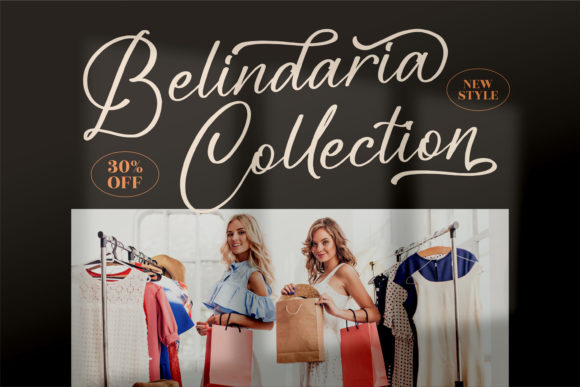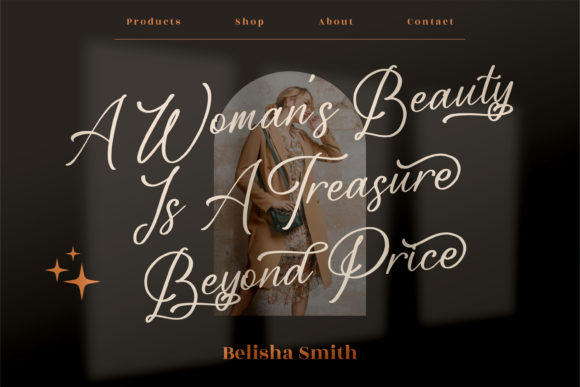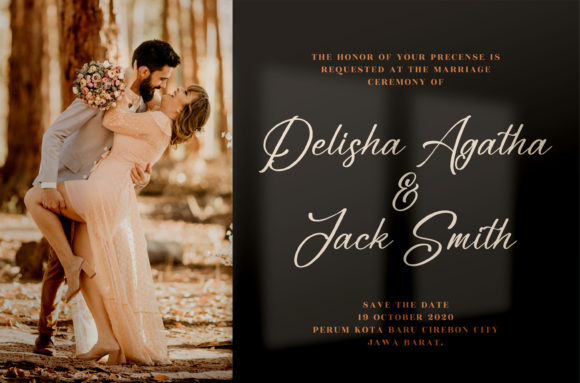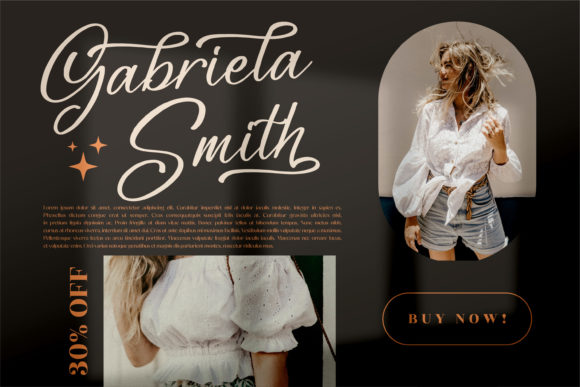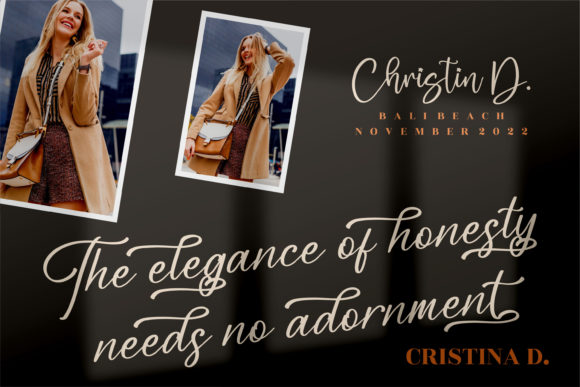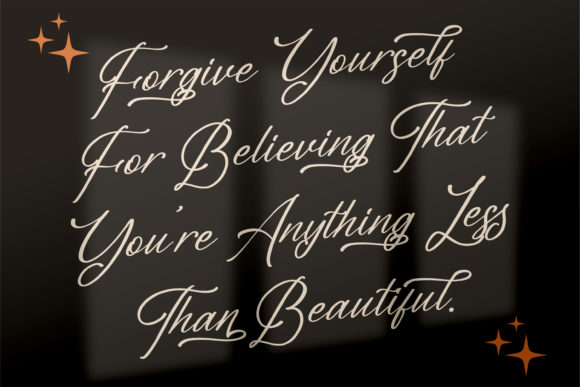
Introducing Blendaria Font: The Ultimate Romantic Calligraphy Typeface
Are you a designer or crafter looking for a font that adds a touch of luxury and romance to your design projects? Look no further than Blendaria Font! This stunning calligraphy typeface is designed to make your designs stand out with its unique and elegant style. In this article, we’ll dive into the features and benefits of Blendaria Font and explore how it can elevate your design game.
What is Blendaria Font?
Blendaria Font is a romantic and sweet calligraphy typeface that features characters that dance along the baseline. This beautiful font is perfect for adding a touch of luxury and sophistication to any design project. Whether you’re working on a wedding invitation, a branding project, or a packaging design, Blendaria Font is sure to make your design shine.
Key Features of Blendaria Font
- Romantic and Sweet Style: Blendaria Font features a unique and elegant calligraphy style that’s perfect for designs that require a touch of romance and sophistication.
- Dancing Characters: The characters in Blendaria Font are designed to dance along the baseline, adding a playful and whimsical touch to your designs.
- Luxury Spark: This font is designed to add a luxury spark to any design project, making it perfect for high-end branding, wedding invitations, and packaging designs.
- PUA Encoded: Blendaria Font is PUA encoded, which means you can access all of the amazing glyphs and ligatures with ease.
Benefits of Using Blendaria Font
So, why should you choose Blendaria Font for your design projects? Here are just a few benefits of using this stunning font:
- Elegant and Sophisticated: Blendaria Font adds an elegant and sophisticated touch to any design project, making it perfect for high-end branding and luxury designs.
- Unique and Playful: The dancing characters in Blendaria Font add a playful and whimsical touch to your designs, making them stand out from the crowd.
- Easy to Use: With PUA encoding, you can access all of the amazing glyphs and ligatures in Blendaria Font with ease, making it simple to use and incorporate into your designs.
- Versatile: Blendaria Font is perfect for a wide range of design projects, from wedding invitations and branding to packaging designs and more.
Who is Blendaria Font for?
Blendaria Font is perfect for designers, crafters, and anyone looking to add a touch of luxury and romance to their design projects. This font is ideal for:
- Wedding Designers: Blendaria Font is perfect for wedding invitations, wedding stationery, and other wedding-related designs.
- Branding Experts: This font is ideal for high-end branding projects that require a touch of luxury and sophistication.
- Packaging Designers: Blendaria Font is perfect for packaging designs that require a unique and elegant touch.
- Crafters: This font is also perfect for crafters who want to add a personal touch to their DIY projects, such as handmade cards and gift tags.
In conclusion, Blendaria Font is a stunning calligraphy typeface that’s perfect for designers and crafters looking to add a touch of luxury and romance to their design projects. With its unique and elegant style, dancing characters, and PUA encoding, this font is sure to make your designs stand out from the crowd. Whether you’re working on a wedding invitation, a branding project, or a packaging design, Blendaria Font is the perfect choice.